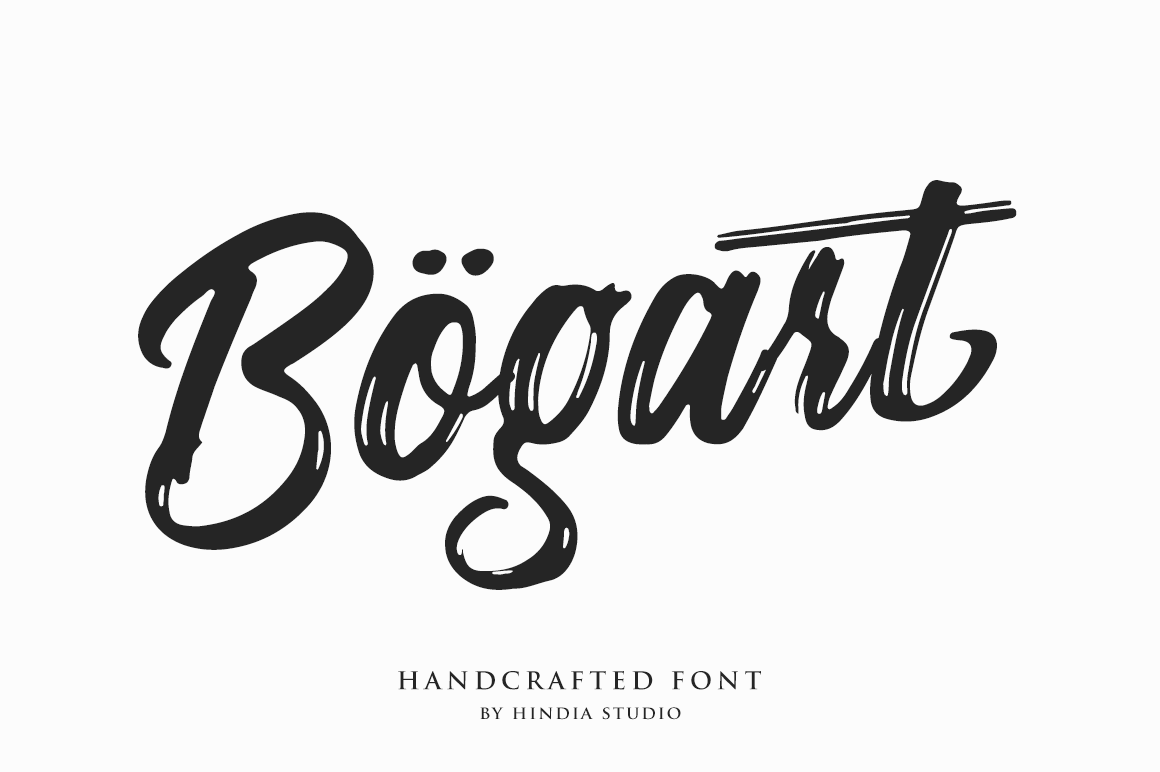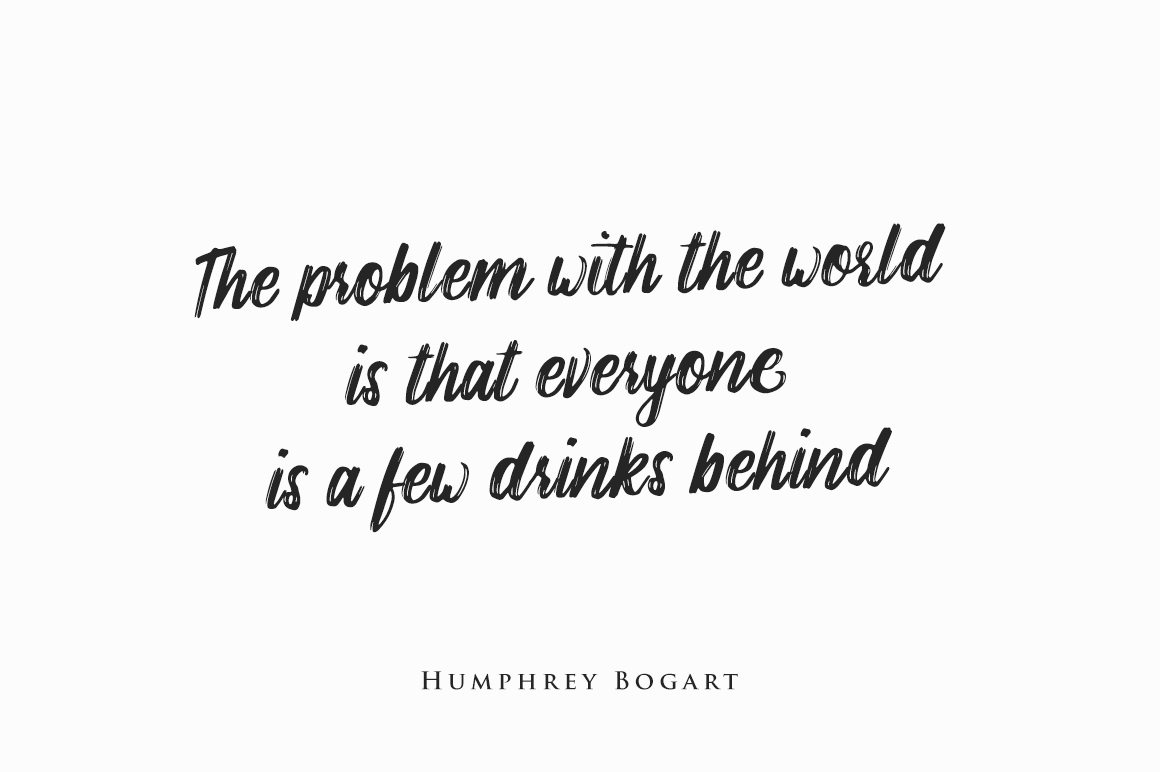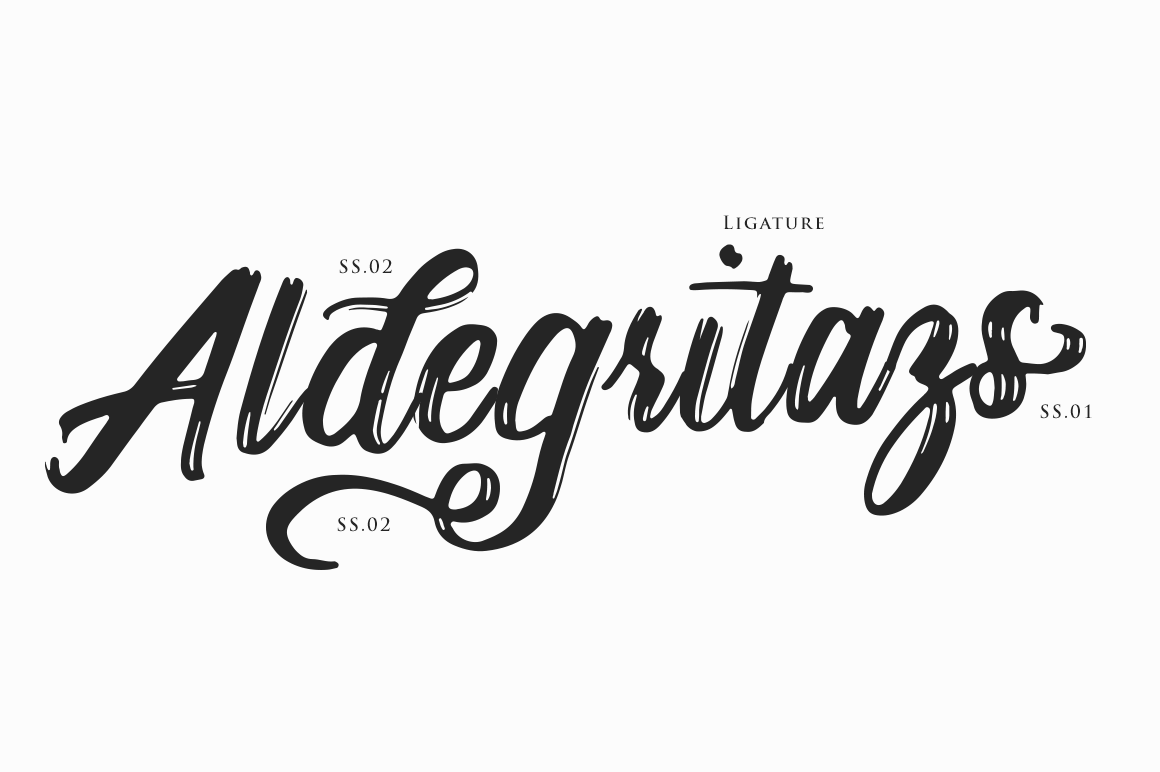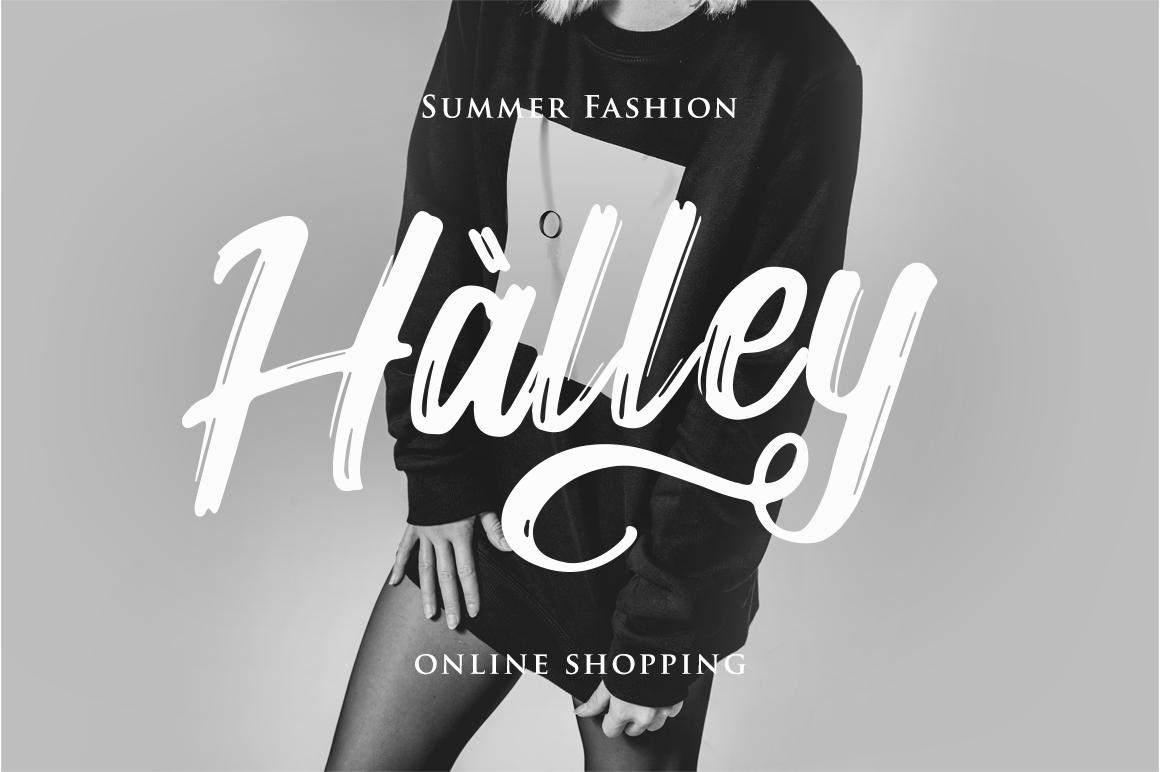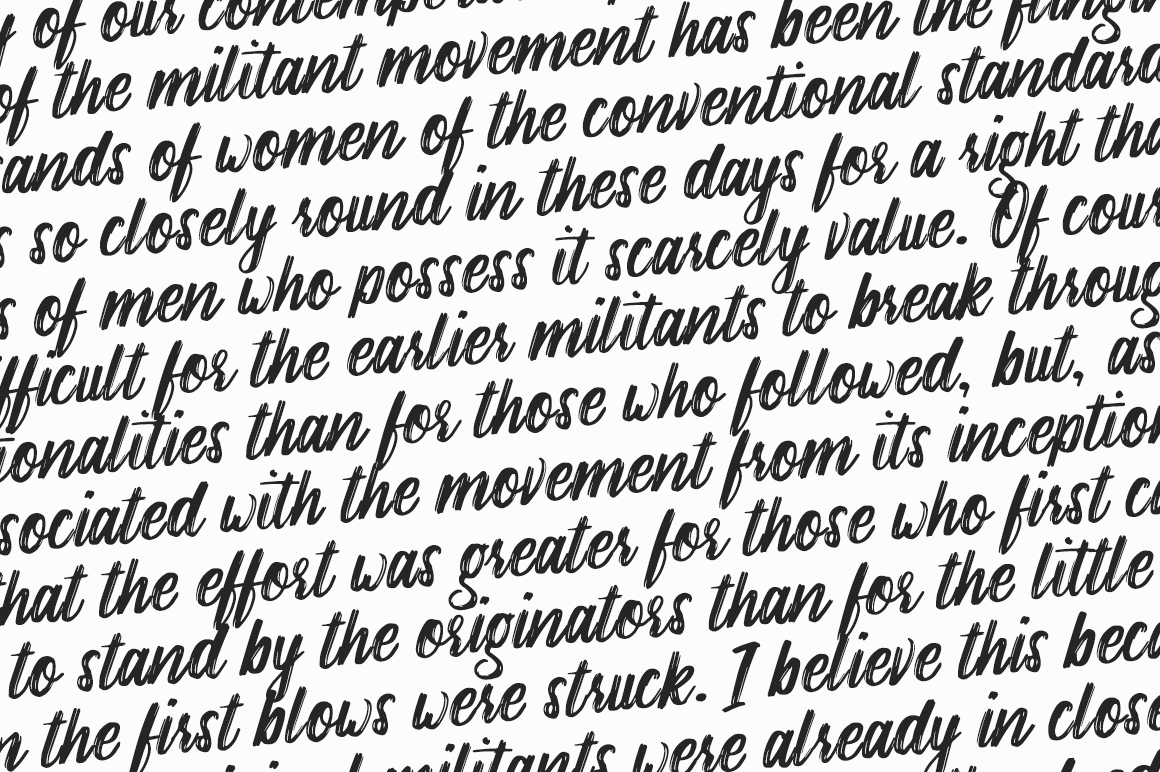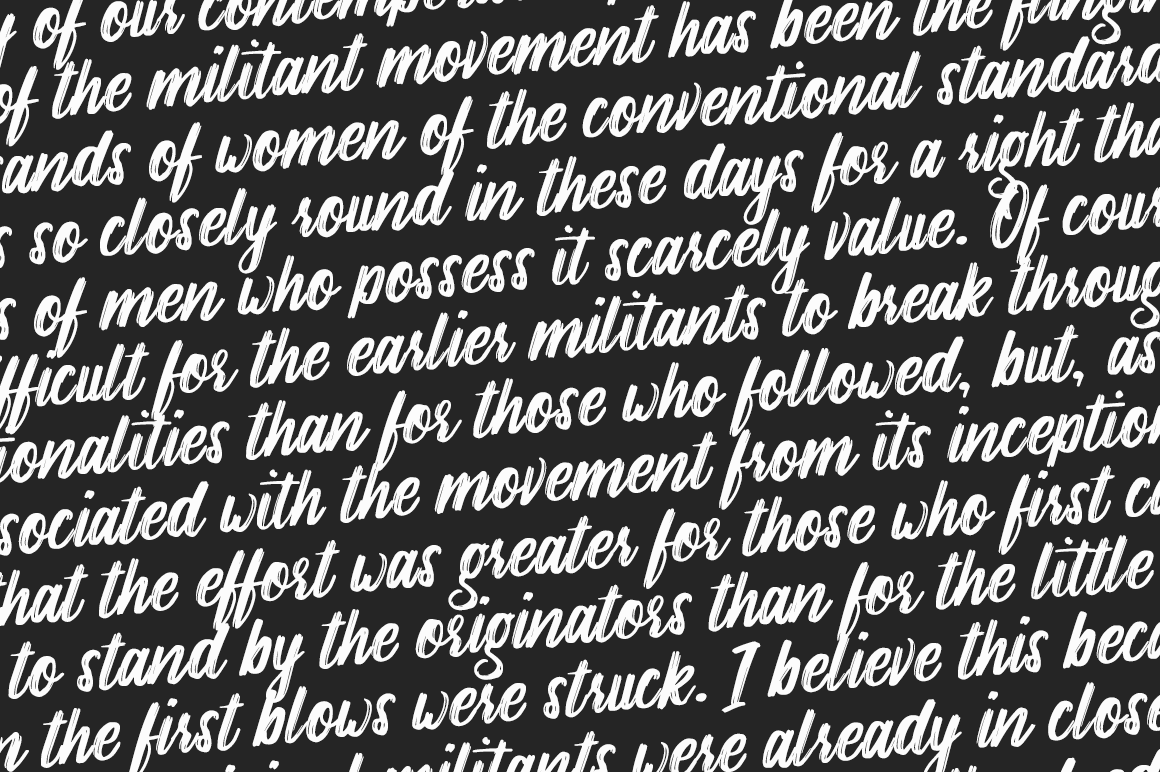
Bogart Font
About Bogart Font
“Bogart is a casual, free-flowing and fresh font crafted in a brush stroke style. This font is hallmarked by nice cursive handwriting with a rough edgy touch. All letters have been crafted and arranged carefully. Bogart script can be used for a wide range of styles and designs.”